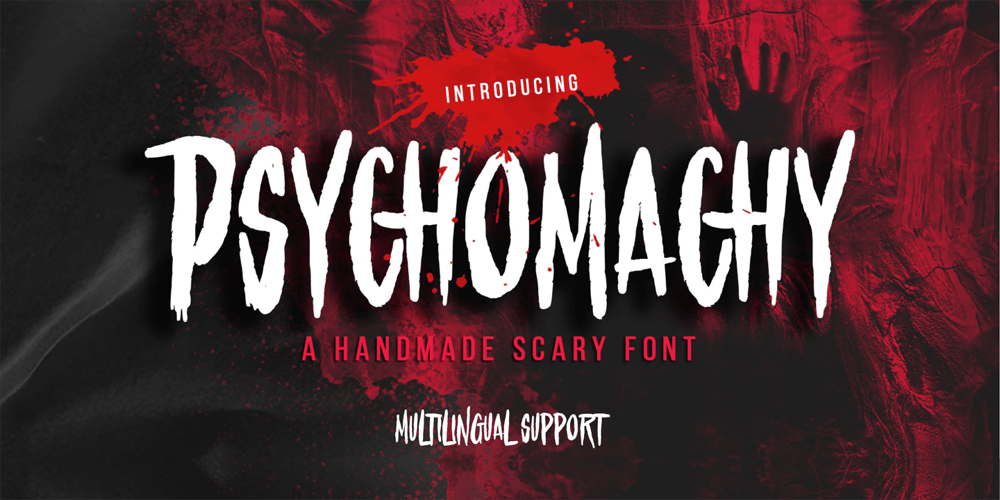
Psychomachy Font Family was designed by Abdul Malik Wisnu, Anang Fibriyanto and published by Gassstype. Psychomachy contains 1 styles and family package options. Hello Everyone, introduce our new product Font Psychomachy Handmade Scary Font with ligature and Multilanguage support.Introducing of designs look modern, unique and fun. It’s perfect for labels, quotes, posters, DIY projects, branding, packaging, greeting cards, websites, photography overlays, signs, window art, scrapbooking, tags and so much more!our new product that inspired by Street Tagging, graffiti style with a fun theme very good for graffity poster, flyer, childrenbook, cartoon, comic etc .That is has charming, authentic and relaxed characteristic more natural look to your text You can activate 15 Alternates glyphs and 10 Ligatures glyphs OpenType panel.